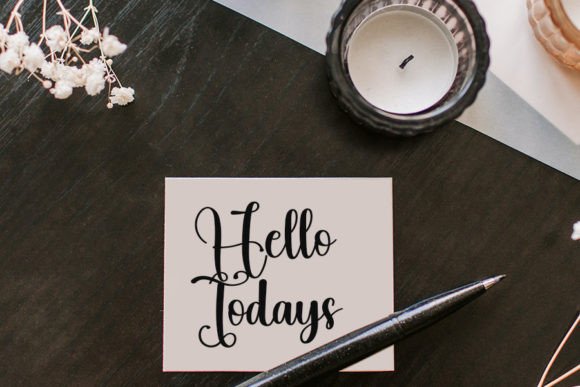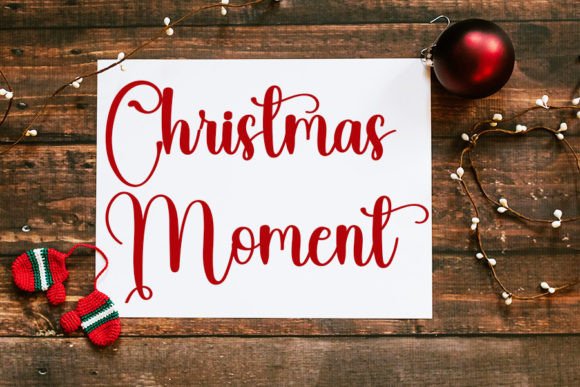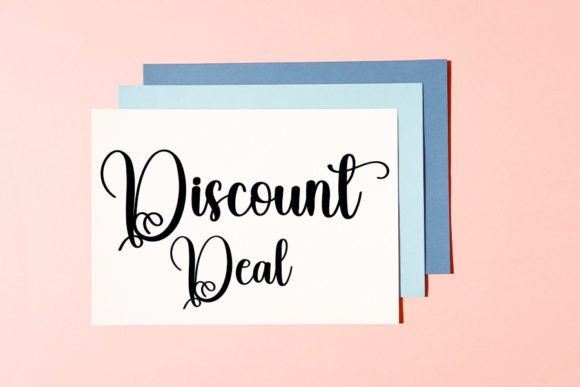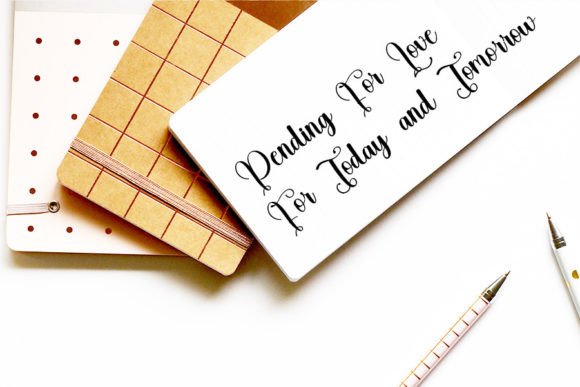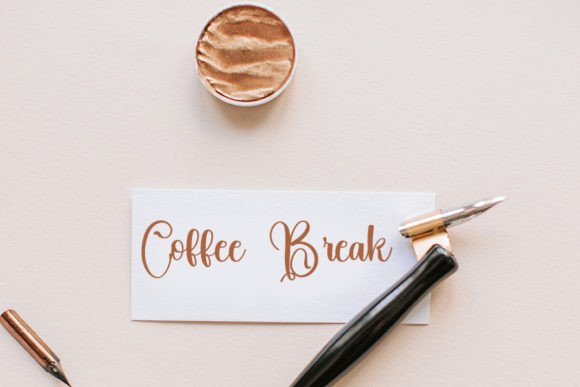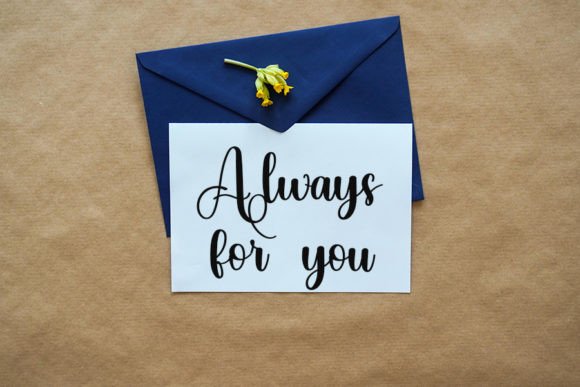
The Aviration Font: A Designer’s Dream Come True
I’ll never forget the moment I stumbled upon the Aviration font while working on a wedding invitation project. I had been searching for the perfect script font for hours, and just when I was about to give up, I saw it – a beautiful, elegant, and casual script font that seemed to scream “use me!” ✨ And trust me, I’m so glad I did.
So, what makes Aviration font so special? Let’s dive into the good stuff and, of course, a few quirks I’ve discovered.
- ✨ Incredibly versatile style: Aviration font is perfect for a wide range of design projects, from wedding invitations to social media posts.
- ✅ PUA encoded: This means you can access all the glyphs and swashes with ease, making it a breeze to customize your designs.
- 💕 Elegant and casual: The font’s unique blend of elegance and casualness makes it perfect for designers who want to add a touch of sophistication to their work.
While Aviration font is an amazing addition to any designer’s toolkit, there are a few things to keep in mind:
- ⚠️ Some characters may require manual kerning: As with any script font, you may need to adjust the kerning of certain characters to get the perfect look.
- 🤔 Not suitable for body text: Aviration font is best used for headlines, titles, and short paragraphs, as it can be a bit too ornate for longer blocks of text.
The Story Behind Aviration Font
While the true story behind Aviration font may be unknown, it’s easy to imagine that it was created by a designer who wanted to craft a beautiful, versatile script font that would make designers’ lives easier. Perhaps they were inspired by the flowing lines of handwritten calligraphy, or the elegant curves of traditional typography. Whatever the inspiration, Aviration font is a stunning addition to any designer’s toolkit.
Q: What is PUA encoding, and how does it work?
A: PUA (Private Use Area) encoding is a way of mapping characters to a specific range of Unicode code points, making it easier to access and use glyphs and swashes in a font.
Q: Is Aviration font suitable for body text?
A: While Aviration font is beautiful and elegant, it’s best used for headlines, titles, and short paragraphs. For longer blocks of text, you may want to choose a more traditional font.